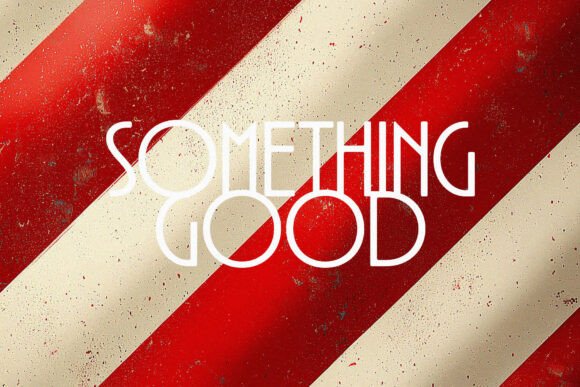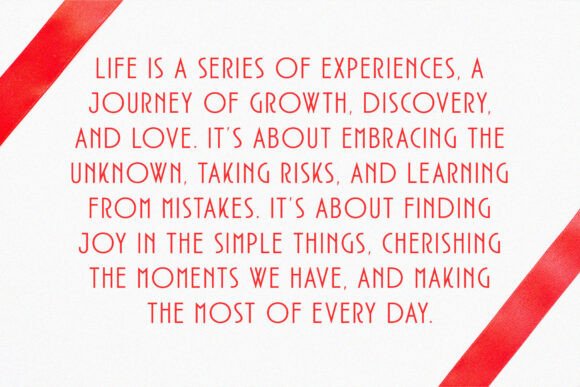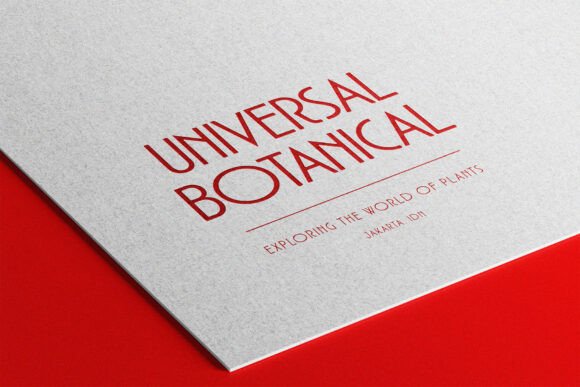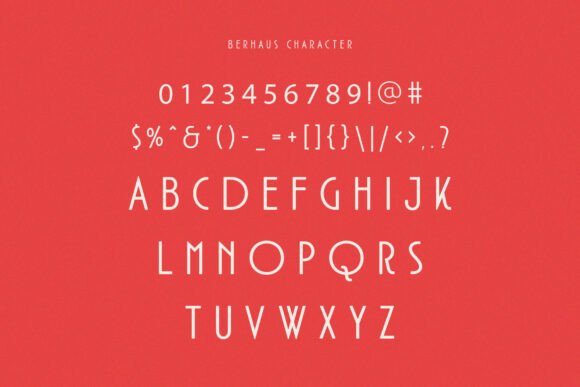
The Perfect Blend of Modernity and Elegance: Introducing Berhaus Font
As designers, we’ve all been there – staring at a blank page, trying to bring our creative vision to life. But what happens when that vision requires a font that exudes sophistication and style? For those moments, we’re excited to introduce Berhaus Vintage Condensed Sans, a modern and elegant font that’s perfect for making a statement.
Berhaus Font is designed to be the perfect display font for headings, logos, branding, magazines, product packaging, and invitations. With its clean lines and smooth curves, it adds an extra touch of class to any project. Whether you’re working on a high-end branding project or a wedding invitation, Berhaus Font is sure to impress. For designers, it’s a valuable addition to their toolkit, offering a unique and versatile solution for a wide range of creative applications.
Berhaus Font Key Features
- Font Family: Berhaus Font is a sans-serif font family designed for digital use. It is available in various styles, including Light, Regular, Bold, and Black.
- Unique Characteristics: Berhaus Font features a clean and modern design, with a strong emphasis on legibility and readability. Its unique characteristics include a rounded edge and a subtle flair at the terminals, making it a popular choice for digital design and publishing.
Designer Review: Berhaus Font
As a designer, I had the opportunity to work with the Berhaus Font, and I must say, it’s a mixed bag. Here’s my honest review.
- Unique and elegant design: The Berhaus Font has a distinctive flair that sets it apart from other sans-serif fonts. Its curved lines and rounded edges give it a touch of sophistication.
- Excellent legibility: This font is highly legible, making it perfect for body text, headings, and even titles.
- Wide compatibility: Berhaus Font is compatible with most operating systems and devices, making it a great choice for cross-platform projects.
- Limited font sizes: While the font looks great at larger sizes, it can become too thin and difficult to read at smaller sizes.
- Not ideal for bold text: The font’s design doesn’t lend itself well to bold text, making it less effective for headlines and titles.
- No italic or oblique versions: The font is only available in regular and bold weights, which can limit its versatility.
The Berhaus Font is a beautiful and elegant font that excels in certain areas, but falls short in others. While it’s perfect for body text and headings, its limitations make it less suitable for bold text and smaller font sizes. If you’re looking for a unique and legible font, Berhaus might be a great choice. However, if you need a font with more versatility, you might want to consider other options.
Tips for Getting the Most Out of the Berhaus Font
For optimal results, use the Berhaus font in designs where you want to convey a sense of elegance and sophistication. This font is particularly well-suited for headings, titles, and other large text elements. Experiment with different font sizes and colors to create visually appealing designs.
The Berhaus font is commonly used in:
- Corporate branding and marketing materials